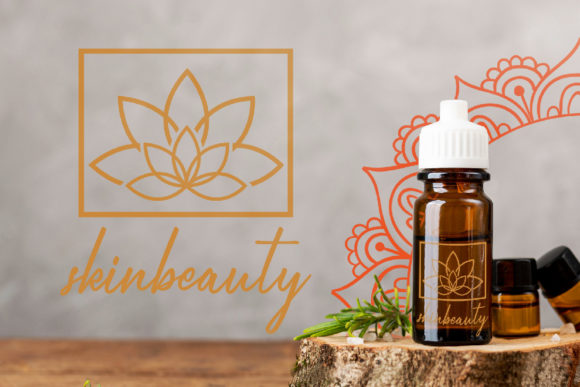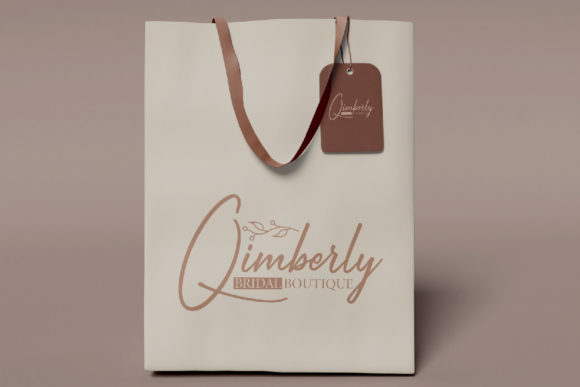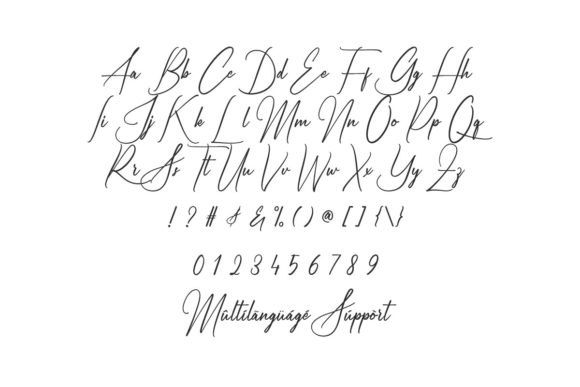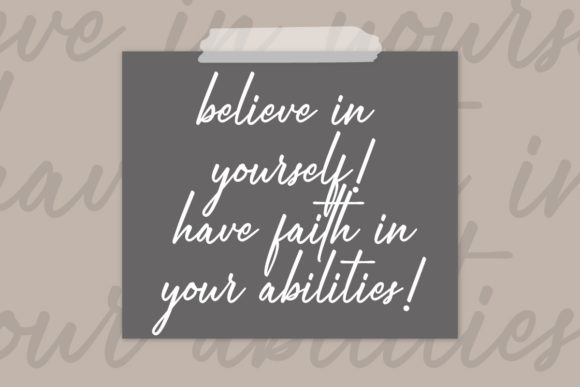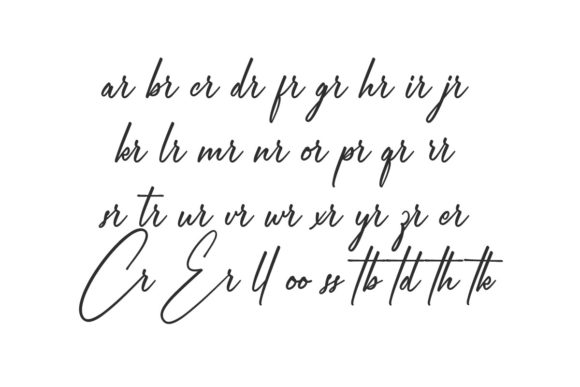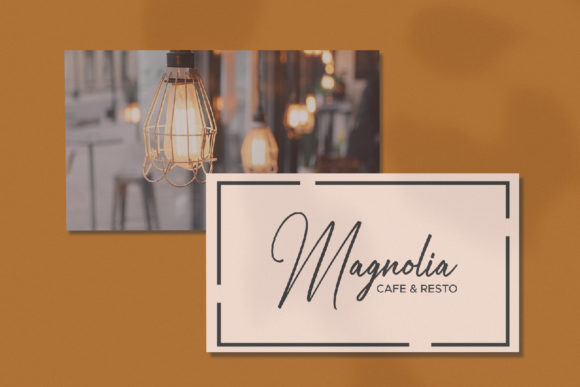
Introducing Claymont Font: Elevate Your Design with Elegant Handwritten Style
In the world of design, fonts play a crucial role in conveying messages, expressing emotions, and creating a lasting impression. If you’re a designer, craftsperson, or simply someone who appreciates beautiful typography, you’re in for a treat. Say hello to Claymont Font, a superb handwritten font that is about to revolutionize the way you approach your creative projects.
The Charm of Claymont Font
Claymont Font is a masterpiece of elegant and curvy lines that will make your work stand out from the crowd. Its unique, handwritten style exudes a sense of sophistication and refinement, perfect for a wide range of applications. Whether you’re working on product packaging, branding projects, magazine covers, social media graphics, or wedding designs, Claymont Font is the ideal choice to add a touch of luxury and personality to your creations.
What Makes Claymont Font Special?
So, what sets Claymont Font apart from other fonts? Here are a few features that make it a standout:
- Elegant and Curvy Lines: Claymont Font boasts beautiful, flowing lines that add a touch of elegance to any design.
- PUA Encoded: This font is PUA (Private Use Area) encoded, which means you can access all glyphs and swashes with ease. This feature allows you to unlock the full potential of the font and experiment with different styles and combinations.
- Versatile: Claymont Font is perfect for a wide range of applications, from product packaging and branding to social media graphics and wedding designs.
Use Cases for Claymont Font
Claymont Font is an incredibly versatile font that can be used in various design projects. Here are some use cases to get you started:
- Product Packaging: Add a touch of luxury to your product packaging with Claymont Font. Its elegant lines and sophisticated style make it perfect for high-end brands.
- Branding Projects: Create a lasting impression with Claymont Font. Its unique style will help you establish a strong brand identity that sets you apart from the competition.
- Magazine Covers: Make your magazine cover stand out with Claymont Font. Its bold, yet elegant style is sure to grab attention.
- Social Media Graphics: Elevate your social media graphics with Claymont Font. Its curvy lines and sophisticated style make it perfect for creating engaging and shareable content.
- Wedding Designs: Add a touch of romance and elegance to your wedding designs with Claymont Font. Its beautiful lines and flowing style make it perfect for wedding invitations, programs, and more.
Tips for Using Claymont Font
To get the most out of Claymont Font, here are some tips to keep in mind:
- Experiment with Different Sizes: Claymont Font looks great in various sizes, from small captions to large headlines. Experiment with different sizes to find the perfect fit for your design.
- Play with Swashes and Glyphs: Take advantage of the font’s PUA encoding and experiment with different swashes and glyphs to add a personal touch to your design.
- Pair it with Other Fonts: Claymont Font pairs well with other fonts, especially sans-serif fonts. Experiment with different font combinations to create a unique and visually appealing design.
In conclusion, Claymont Font is a superb handwritten font that is sure to elevate your design work. Its elegant and curvy lines, PUA encoding, and versatility make it perfect for a wide range of applications. Whether you’re a designer, craftsperson, or simply someone who appreciates beautiful typography, Claymont Font is a must-have in your font collection. So why wait? Get creative with Claymont Font today and take your designs to the next level!